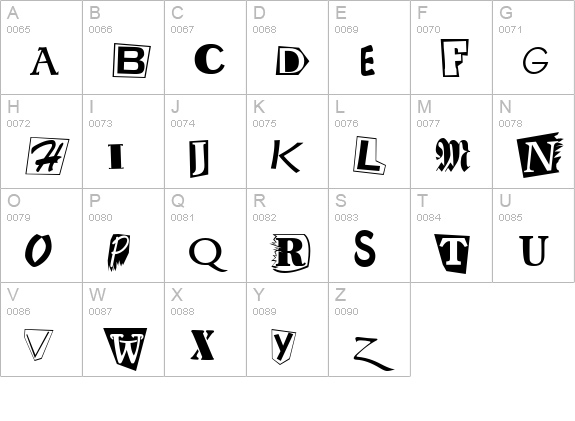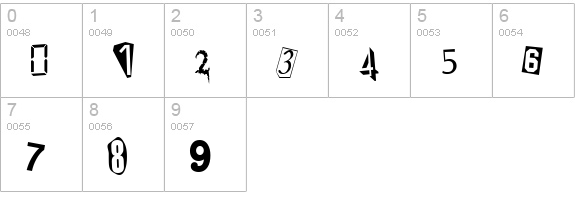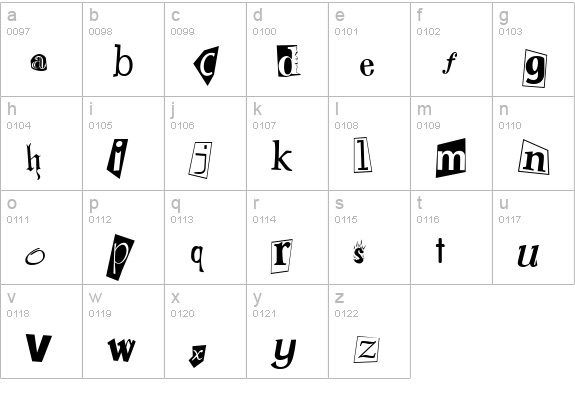
Introducing Ransom Note font, a captivating and versatile typeface that brings a touch of mystery and intrigue to your creative projects. This unique font is inspired by the iconic ransom notes often seen in thrilling movies and suspenseful novels, making it the perfect choice for adding an element of surprise to your designs. With its jagged edges and irregular letterforms, Ransom Note font instantly grabs attention and creates a sense of urgency. Each character has been carefully handcrafted to embody the essence of a genuine ransom note, giving your texts a genuine and authentic feel. But what sets Ransom Note font apart is not just its striking aesthetic appeal, but also its accessibility. We believe that creativity should be free and accessible to all, which is why we are thrilled to offer Ransom Note font as a freely available download at FontsMarket.com. Now, you can effortlessly add a touch of suspense and drama to your designs without breaking the bank. Whether you're working on a book cover, a movie poster, a magazine layout, or even a social media graphic, Ransom Note font will instantly elevate your designs and leave a lasting impression on your audience. Its versatility allows it to be used in a variety of contexts, from vintage themes to modern and edgy designs. So, go ahead and download Ransom Note font from FontsMarket.com today and unleash your creativity. Get ready to captivate your audience with this one-of-a-kind typeface that combines the allure of mystery with the accessibility of being freely available. Take your designs to the next level and make a statement with Ransom Note font.